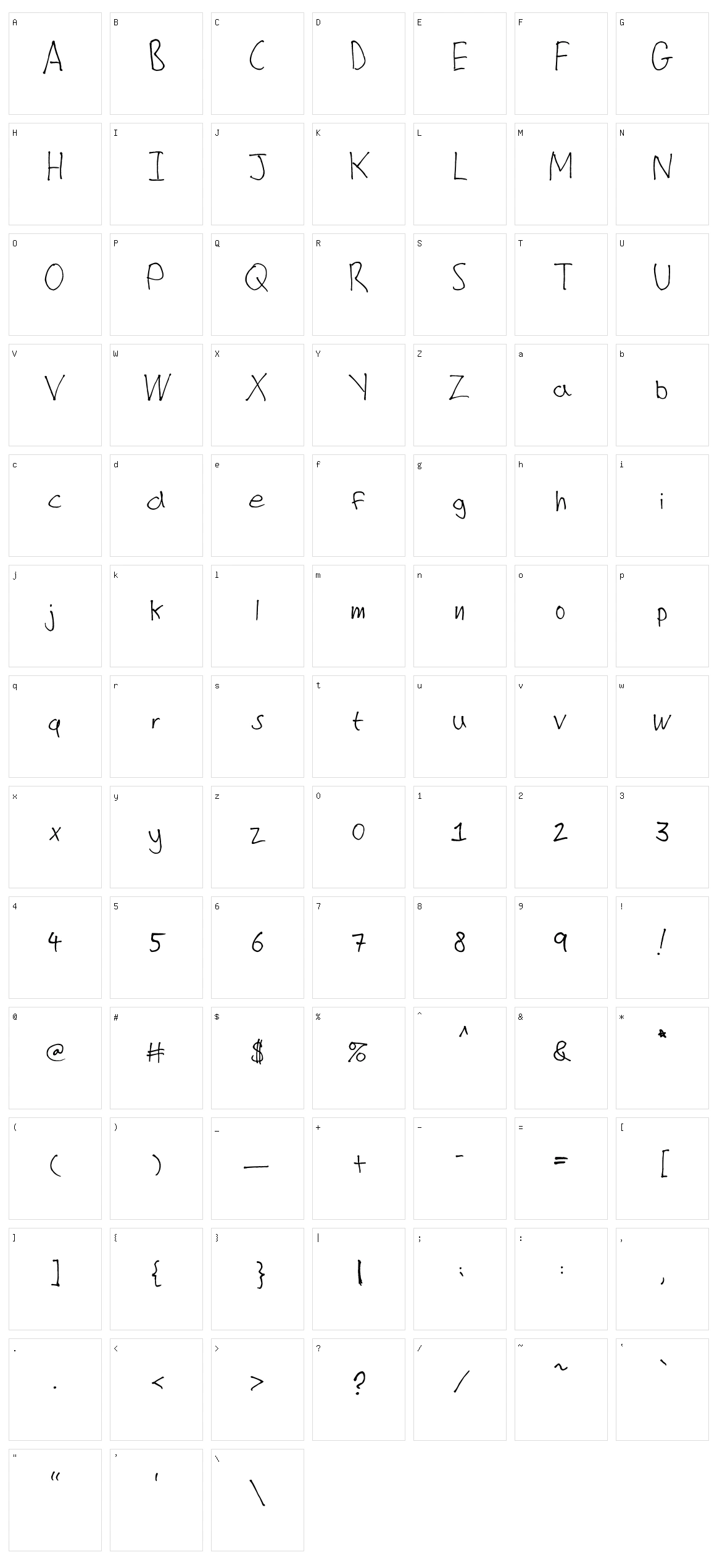
The free font Christopher's Scribble is carefully designed by Christopher Jackson, showcasing a thoughtful balance of creativity and usability and falls under the Script font style. When you download the ZIP file, it contains only 20.92 KB of font files, making it lightweight and quick to download. Please review the license details below to understand permitted usage and distribution rights. If license information is not available, we recommend using this font for personal projects only or contacting the author directly for commercial usage permissions.